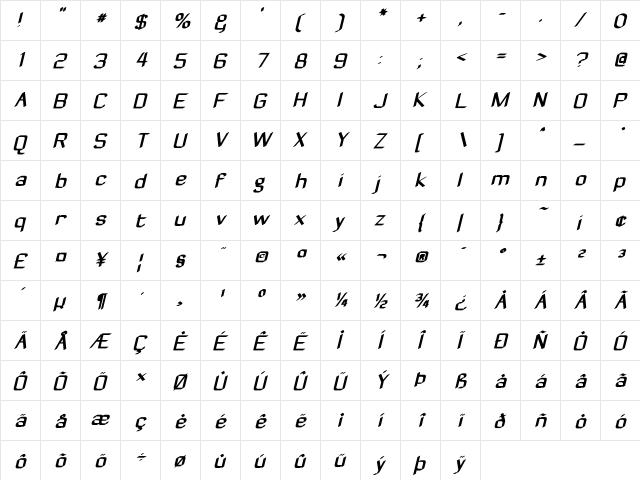
Zyphyte Medium Italic
Design Context for Zyphyte Typeface
Zyphyte takes a measured approach to typography — its balanced proportions and neutral character make it a reliable workhorse for both digital and print work. Its italic angle brings a sense of urgency and motion to the letterforms.
Pro Tip: Try Zyphyte for annotation and caption copy alongside an upright companion — the contrast in angle creates a dynamic but ordered typographic system.